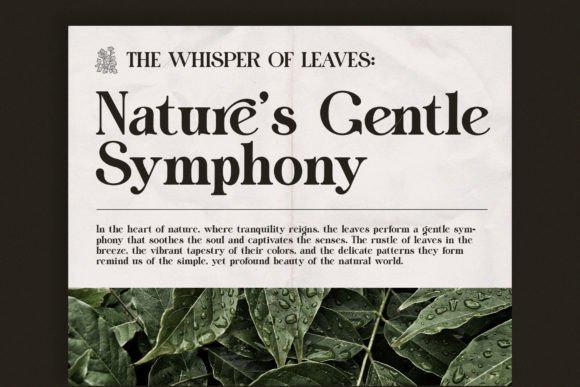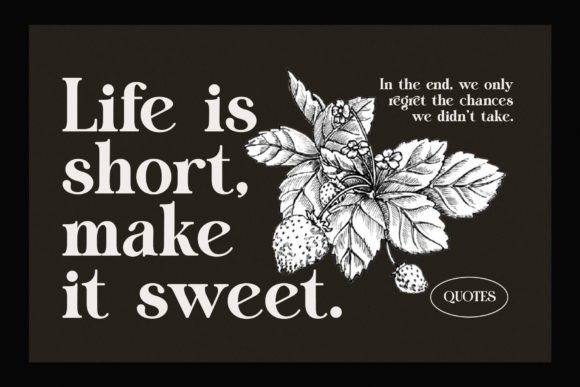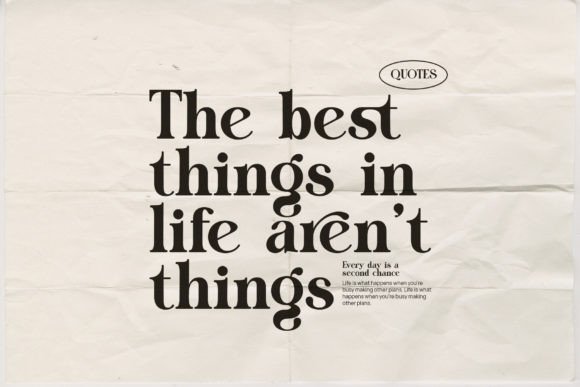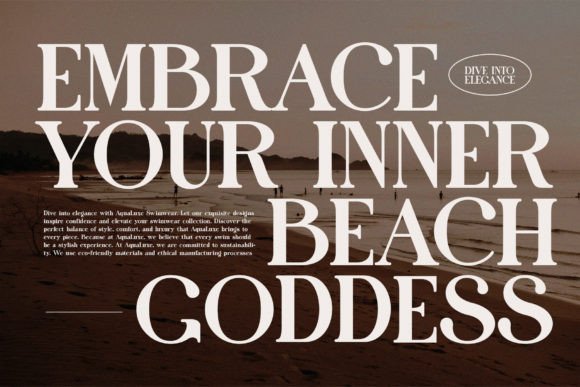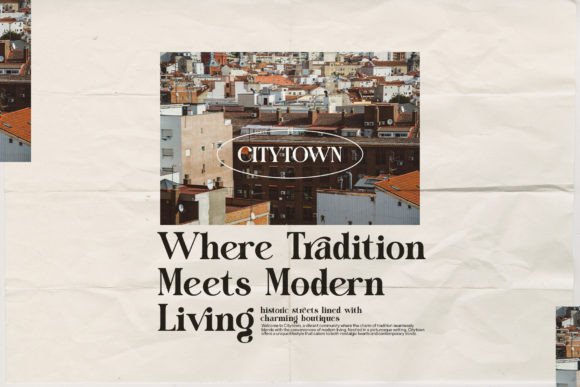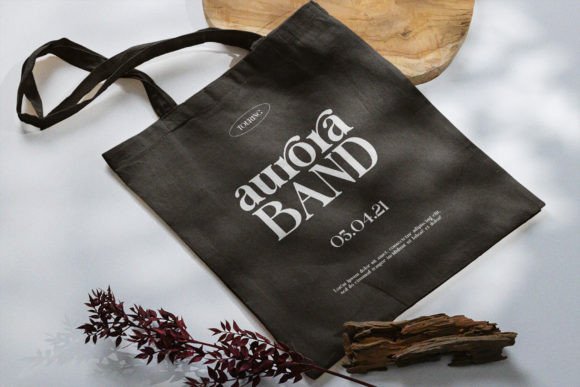
Introduction to Mistesy Font
Have you ever been stuck on a creative project, searching for the perfect font to elevate your design? I know I have. That’s why I’m excited to introduce you to the Mistesy Font, a refined and contemporary serif typeface that’s sure to take your designs to the next level. With its classic elegance and modern design sensibilities, Mistesy is the perfect choice for designers looking to add a touch of sophistication to their work.
What I love about the Mistesy Font is its versatility. Whether you’re working on a high-quality branding project or creating editorial content for a magazine or newspaper, this font is sure to impress. Plus, with a transparent background, you can easily place it over any image or design element. And the best part? It’s available for free download, making it an invaluable design resource for any creative project.
Key Features of Mistesy Font
- High-quality design with a unique, creative style suitable for various projects.
- Supports various languages, making it a versatile design resource for global creative projects.
- Features a high-resolution design, suitable for use in large-scale print materials and digital displays.
- Perfect for use in creative projects, including logos, branding materials, and graphic designs.
Honest Review: Mistesy Font
I recently had the chance to work with the Mistesy Font, and I must say it’s been a game-changer for my creative projects. As a designer, I’m always on the lookout for high-quality fonts that can elevate my work, and the Mistesy Font certainly delivers.
What works well: ✨ The Mistesy Font is incredibly versatile, with a wide range of uses from headings to body text. It’s also available for free download, which is a huge plus for designers working on a budget. The font’s modern and sleek design makes it perfect for any creative project that requires a touch of sophistication.
One of the standout features of the Mistesy Font is its transparent background, making it easy to use with a variety of design elements. This feature also allows for seamless integration with other design resources, making it a great addition to any designer’s toolkit.
Limitations: ⚠️ While the Mistesy Font is a solid choice for most projects, I did find that it can be a bit difficult to read in small sizes. This is a minor issue, but it’s worth noting for designers who plan to use the font in smaller formats.
Overall, I’m thoroughly impressed with the Mistesy Font. Its high quality, versatility, and ease of use make it a must-have for any designer working on a creative project. Whether you’re a seasoned pro or just starting out, the Mistesy Font is definitely worth checking out.
- High-quality font suitable for headings and body text
- Modern and sleek design
Tips for Getting the Most Out of Mistesy Font
For a transparent background, use the font with a solid-colored shape or image behind it. You can also experiment with different font sizes, colors, and combinations to create unique designs.
Mistesy Font is perfect for:
- Typography-based designs
- Logos and branding
- Infographics and charts
- Editorial and magazine designs
Alternatives to Mistesy Font